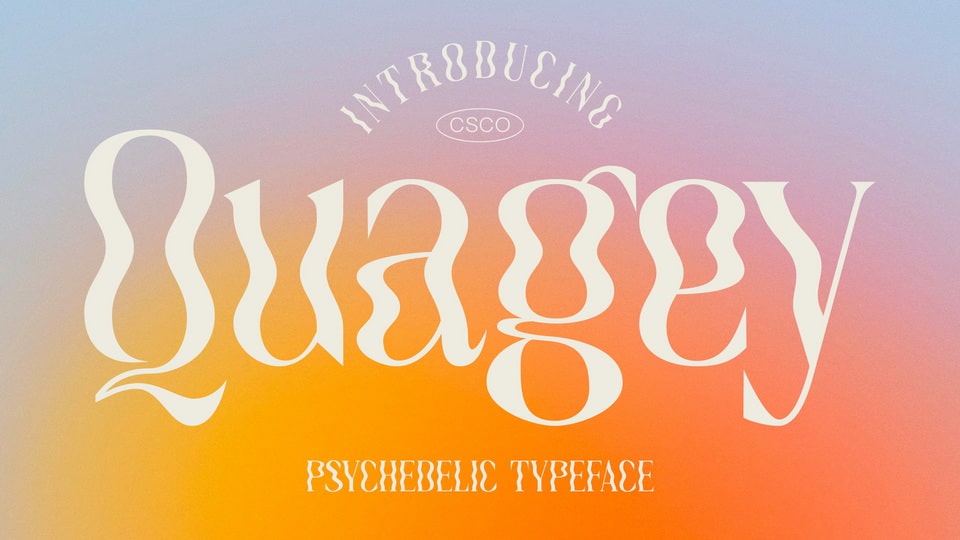
Download Quagey font, a psychedelic typeface where letters dance with vibrant, kaleidoscopic energy. It’s not just a font; it’s an electrifying visual experience, making your message unmissable, like a psychedelic journey.